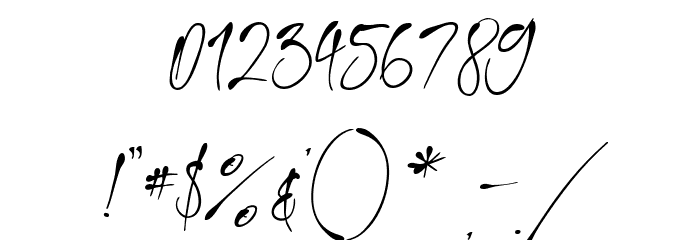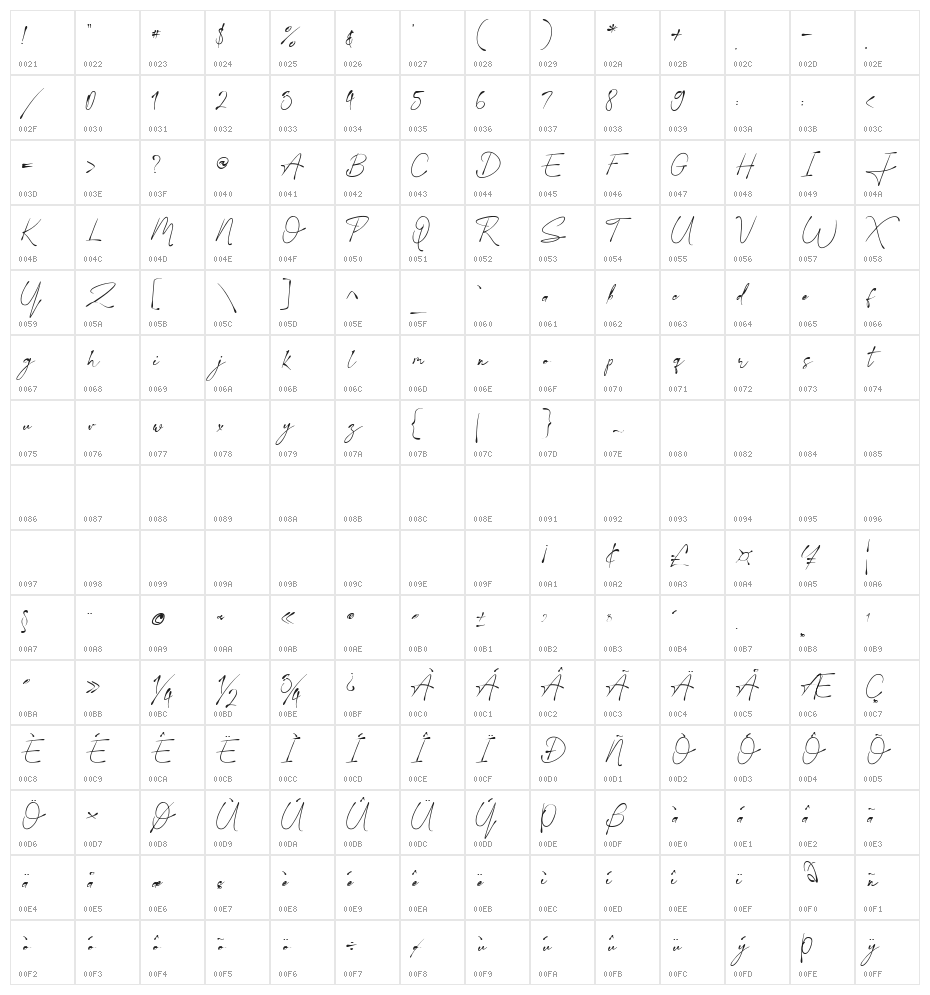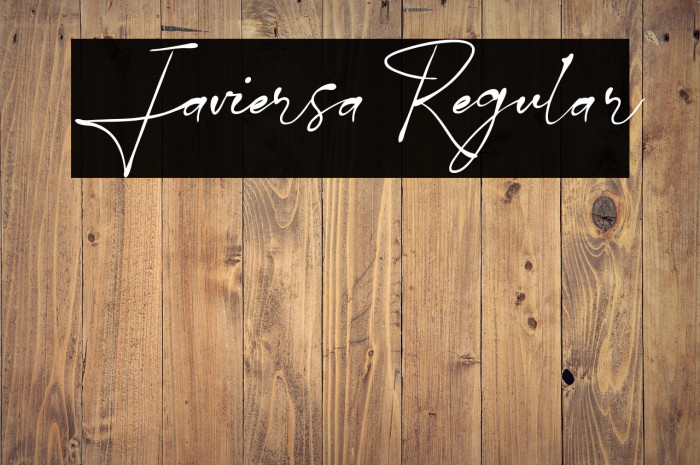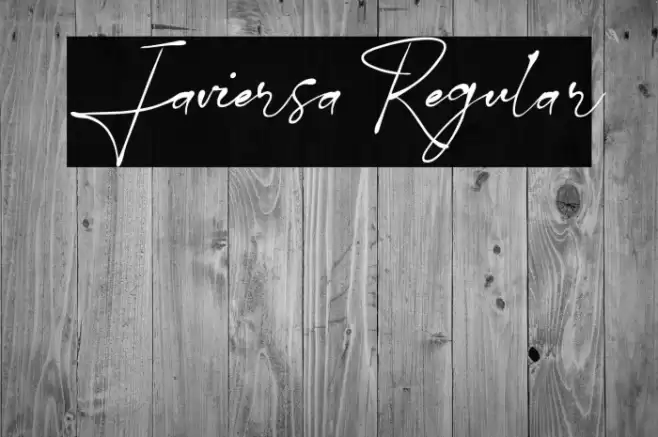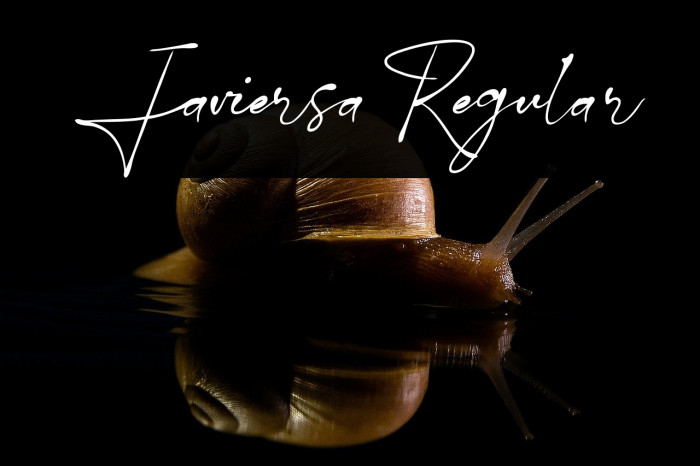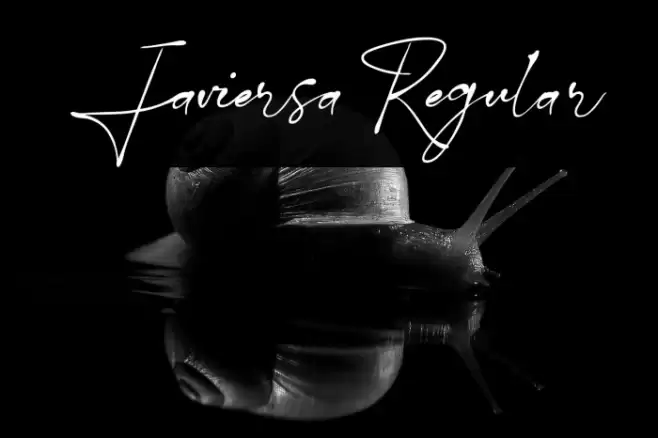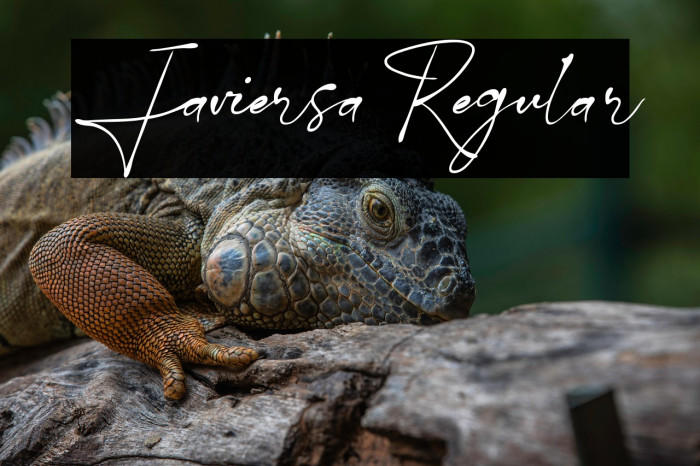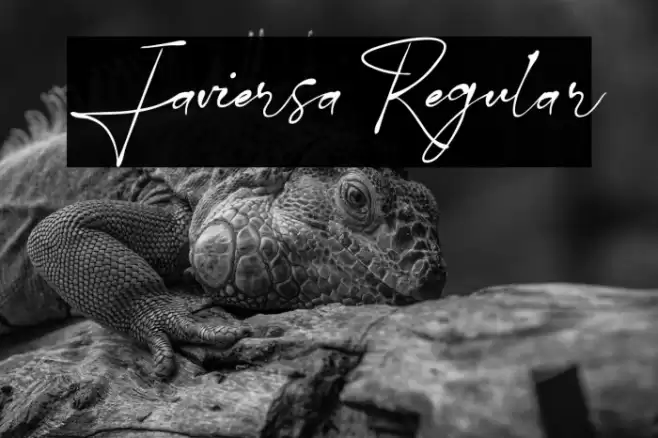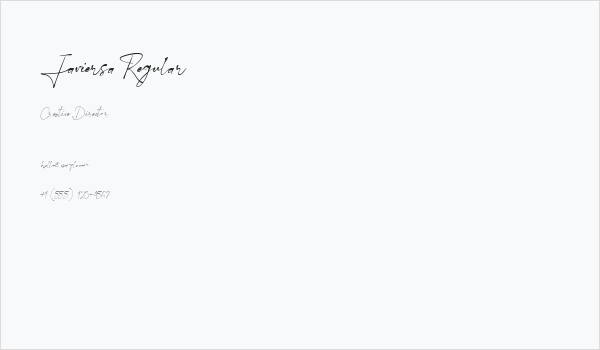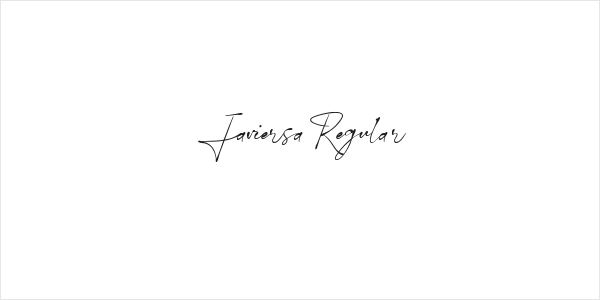
Javiersa Regular Font
Javiersa Regular Description
This font features an elegant and flowing script style, characterized by its smooth, cursive strokes and delicate lines. The uppercase letters are tall and slender, with a slight slant that adds a sense of motion and grace. The lowercase letters maintain a consistent flow, with loops and curves that enhance its handwritten appearance. Numbers and special characters are designed to complement the overall aesthetic, maintaining the same fluidity and elegance. This font is perfect for projects that require a personal touch, such as invitations, greeting cards, or branding materials.
| Use Case | Headlines, Invitations, Logos |
| Proposed Projects | Ideal for wedding invitations, greeting cards, personal branding, and elegant logos. |